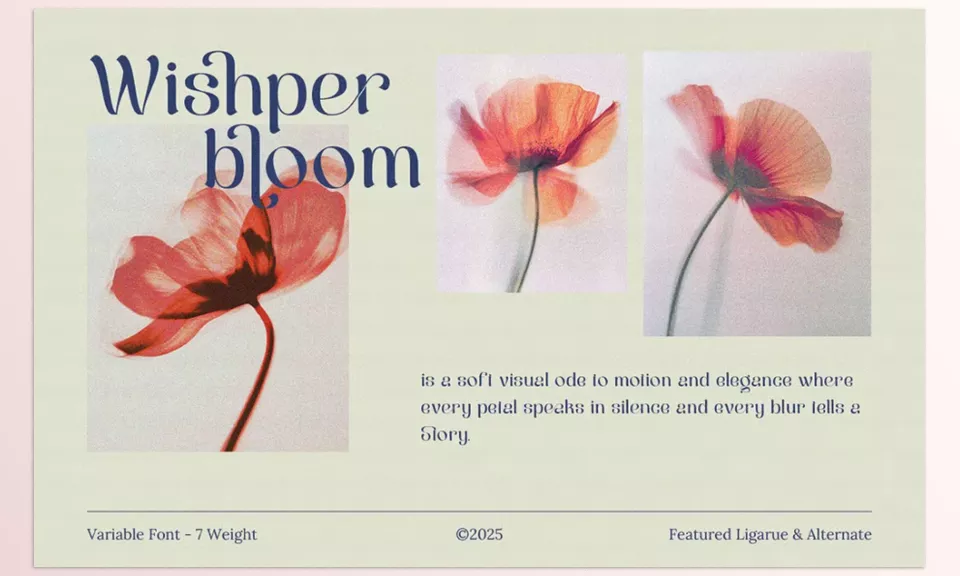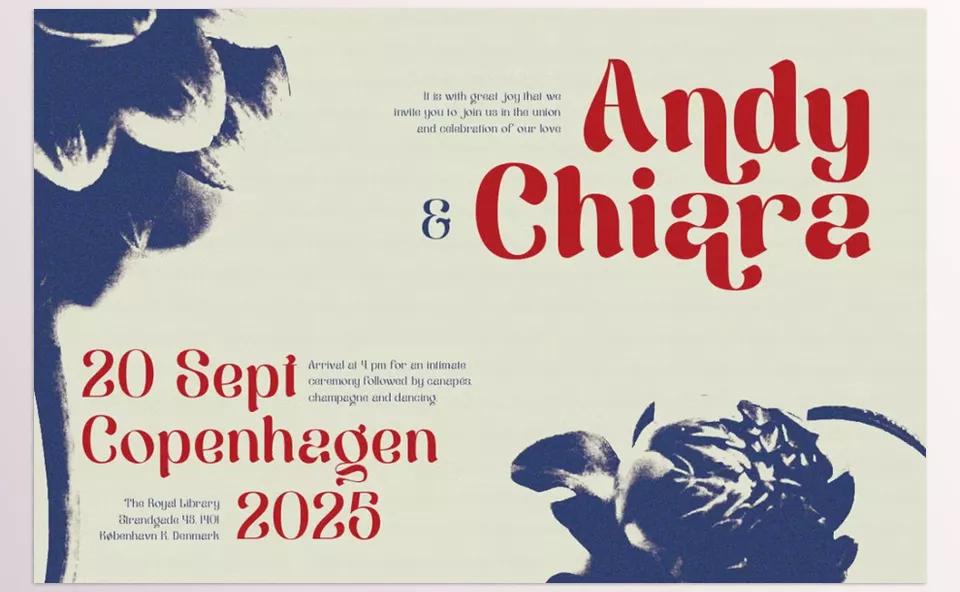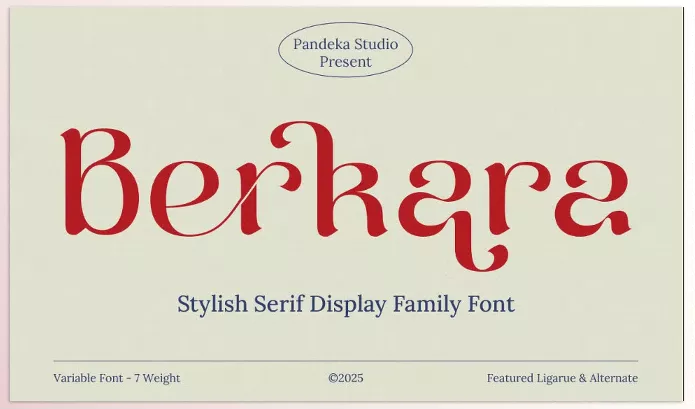
Berkara Stylish Serif Display effortlessly marries modern design with retro style. Ideal for high-end branding, editorial fashion magazines, and chic packaging, its seven styles can fulfill your every need. It shows elegance through ligatures and curves, making it a great choice for high fashion creative projects.
• Variety of Styles: From the thinner to the bolder styles, including Extra Light, Light, Medium, Semi Bold, and Bold, the selection for a design application is limitless.
• Complete Character Set: Full uppercase and lowercase alphabet, numbers, symbols, and punctuation along with more than 25 added ligatures and alternates provide additional flexibility in character choice.
• Scanning Through Languages: Works with Danish, English, French, German, Spanish, and Portuguese, alongside many others expanding usability on a global scale.
Image 1: The clean lines and graceful curves offer an unbeatable modern aesthetic while staying timeless.
Berkara Stylish Serif Display - The clean lines and graceful curves offer an unbeatable modern aesthetic while staying timeless.
Image 2: The Berkara family offers boundless creative design undertakings along with logos and editorial layouts.
Berkara Stylish Serif Display - The Berkara family offers boundless creative design undertakings along with logos and editorial layouts.